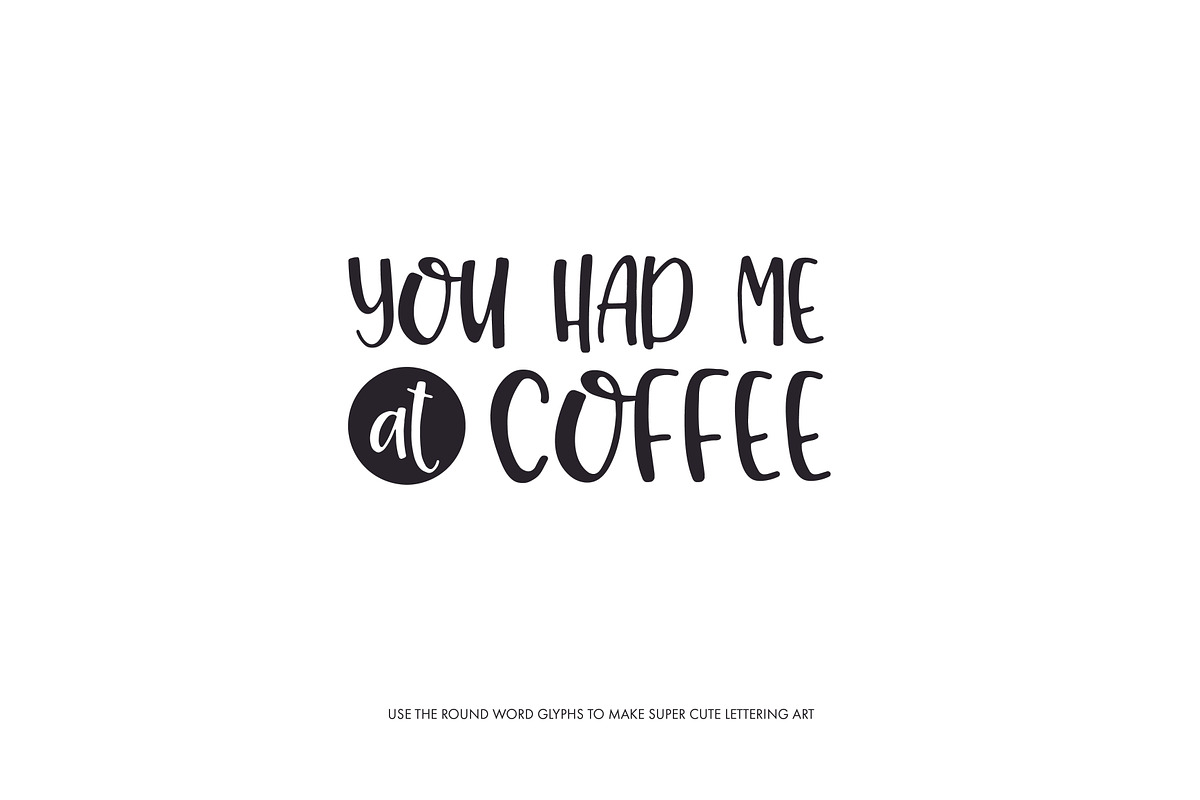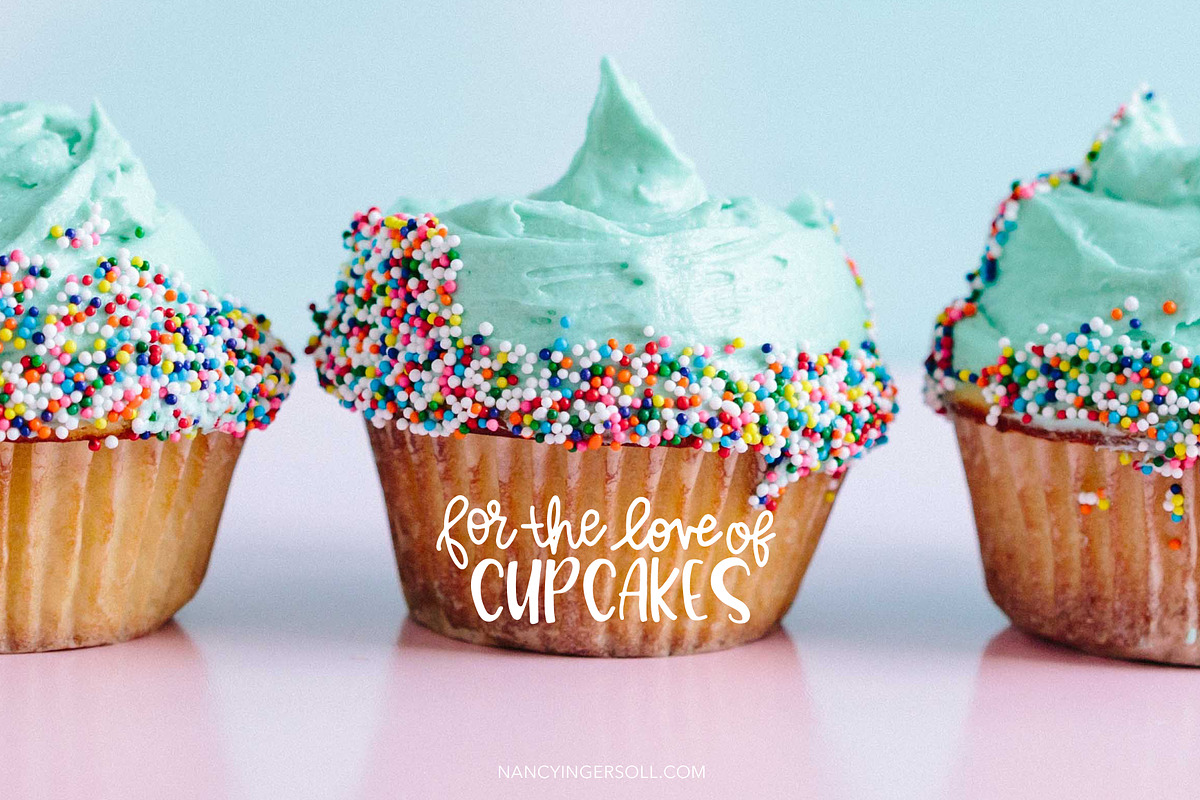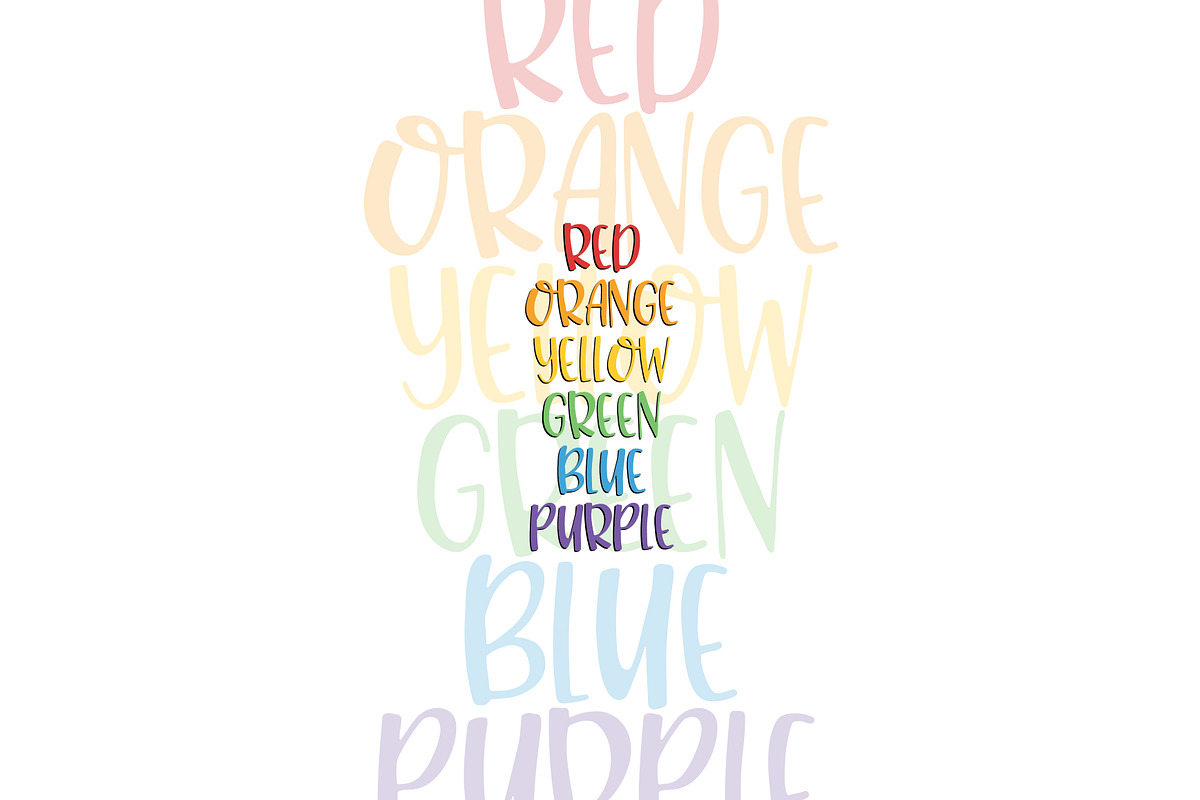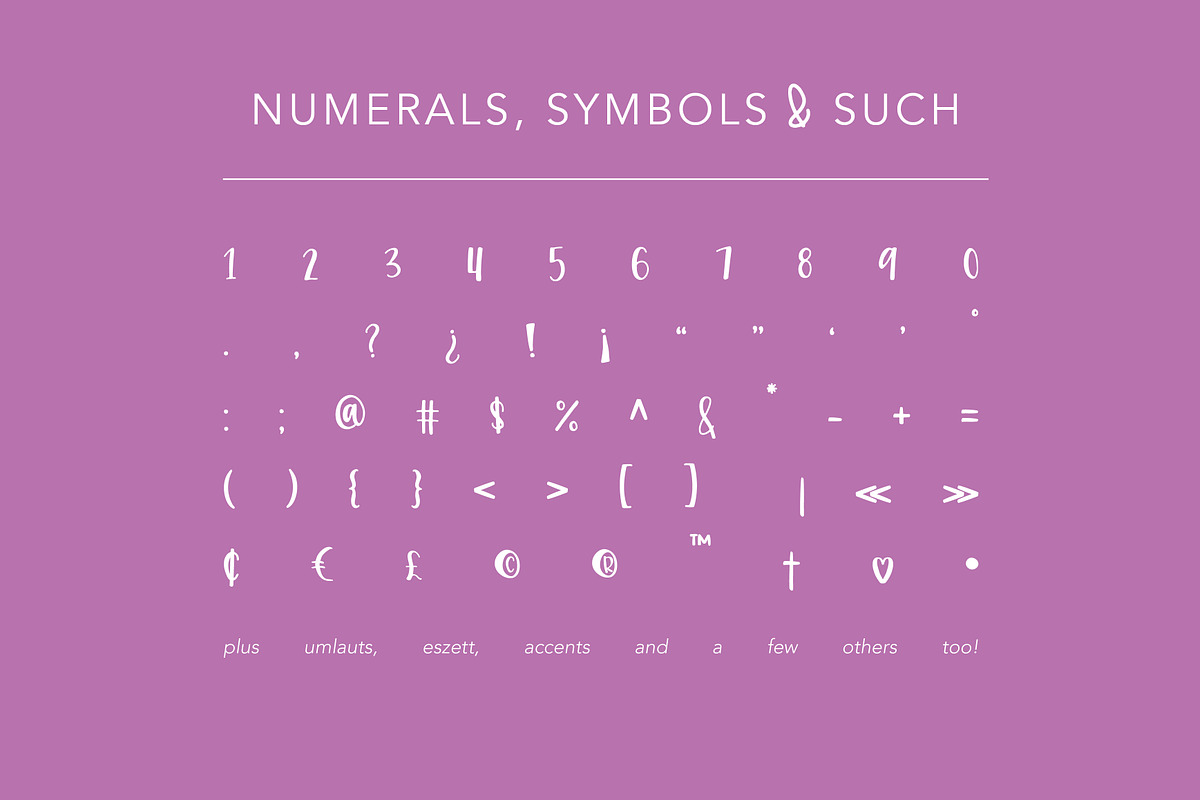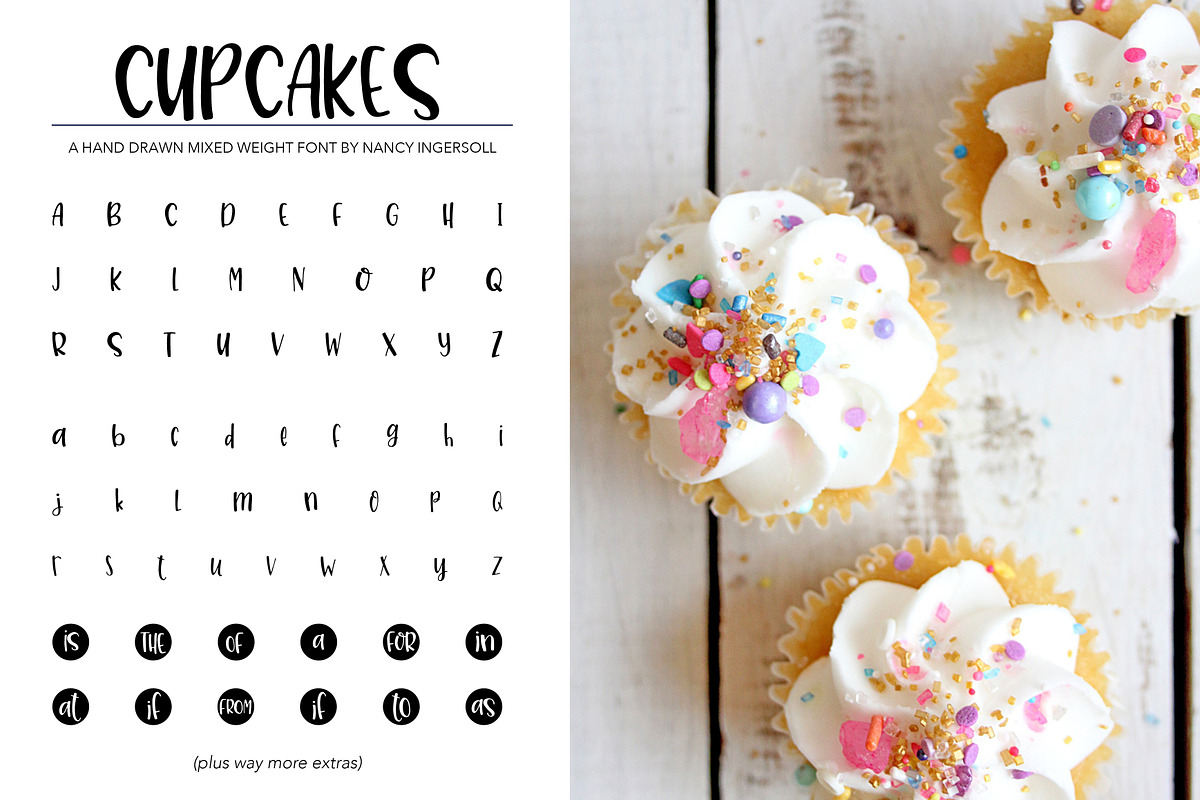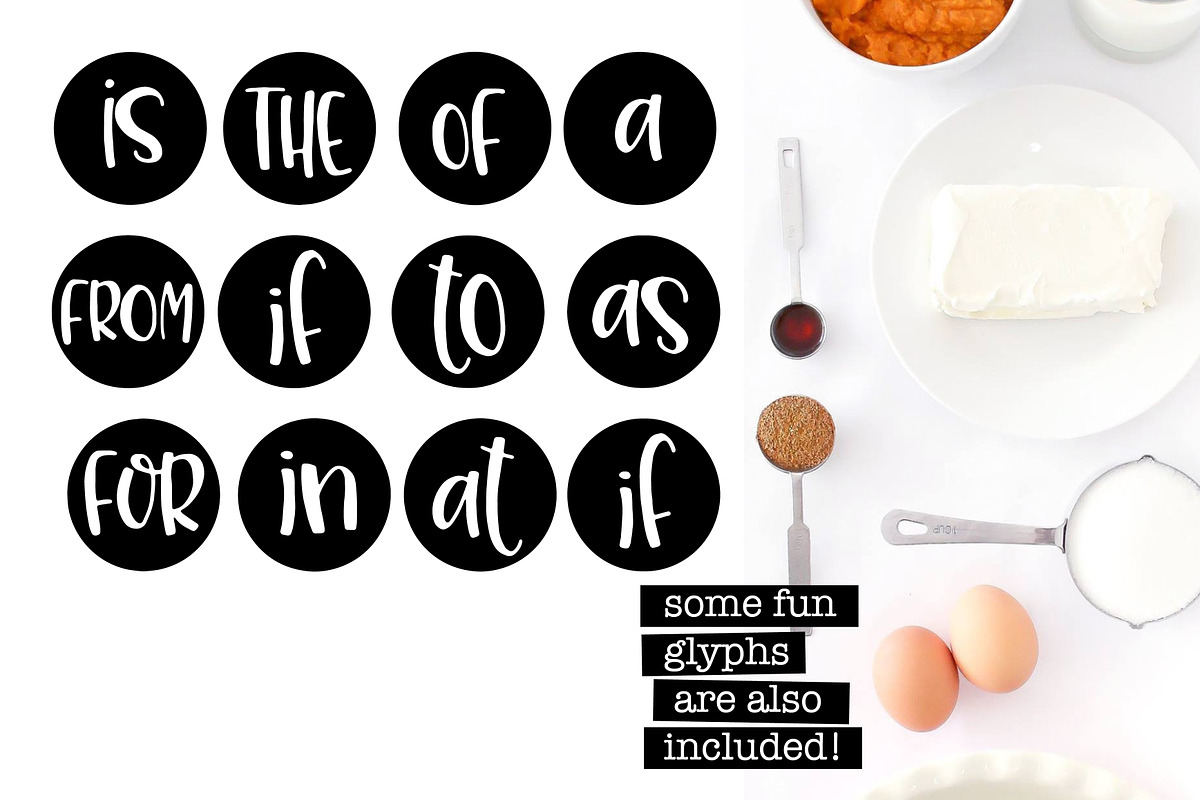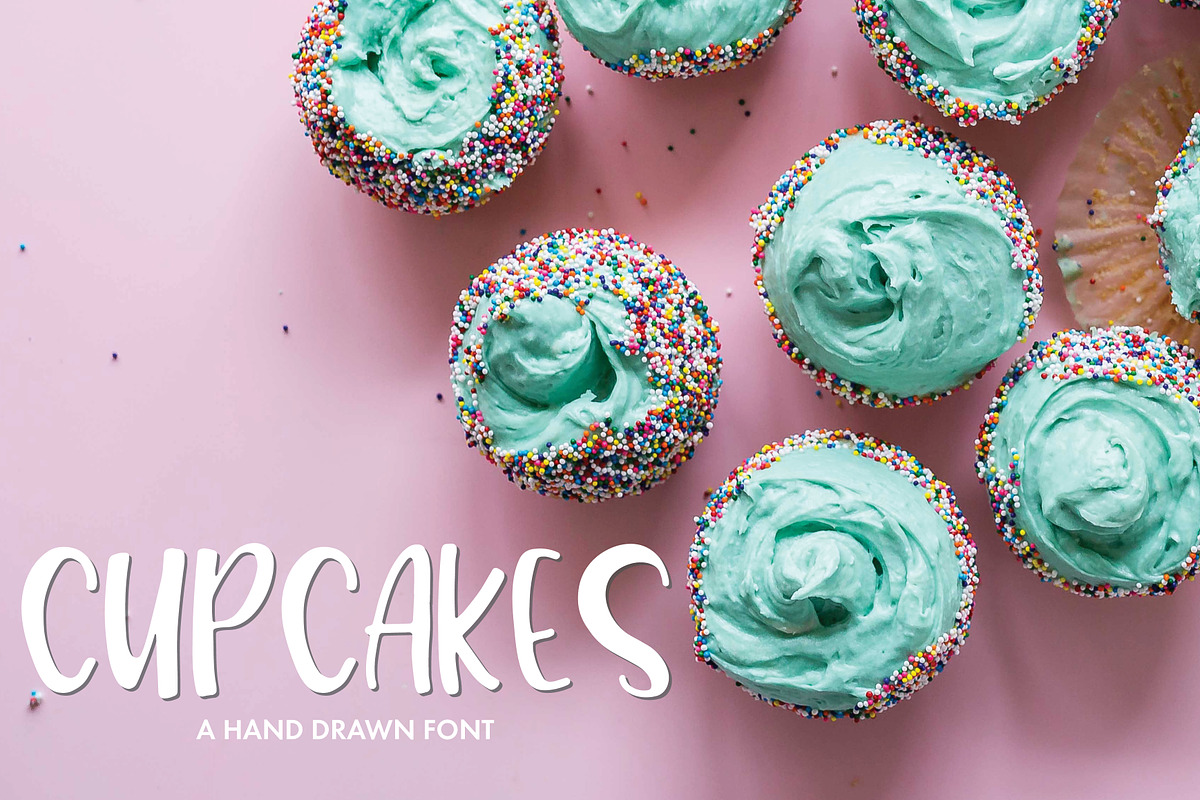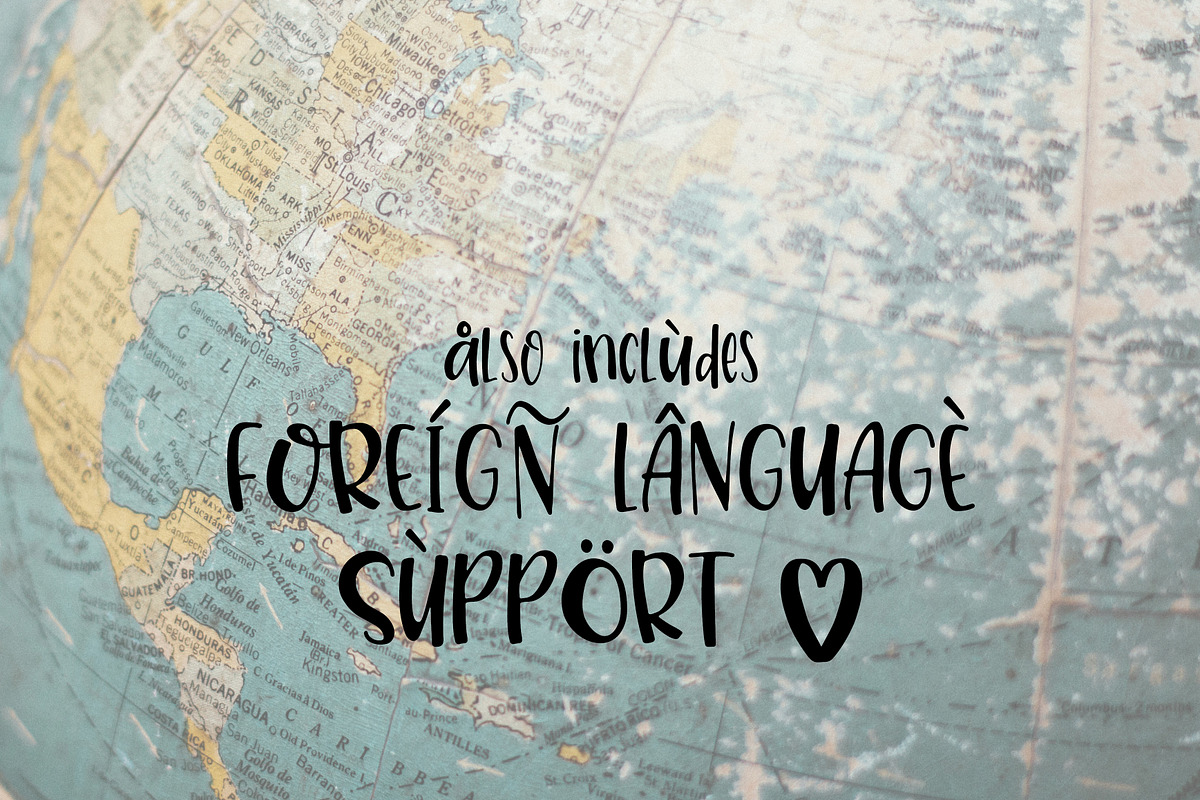
Cupcakes - a Hand Lettered Font
Cupcakes is a handwritten font by Nancy Ingersoll. Designed to stand on its own but also pairs great with other fonts.
This playful font has thick and thin lines while maintaining a clean line by keeping all of the ascenders and descenders mostly within the lines. It is readable and goes well with a wide range of design styles. It also includes symbols used for other languages like the German Estset, and the British Pound and Euro symbol. In addition to the letters, numerals and symbols to get the job done, this font also comes with bonus glyphs which include whole words reversed out in solid circles.
- It also includes symbols used for other languages like the German Estset, and the British Pound and Euro symbol.
- In addition to the letters, numerals and symbols to get the job done, this font also comes with bonus glyphs which include whole words rever